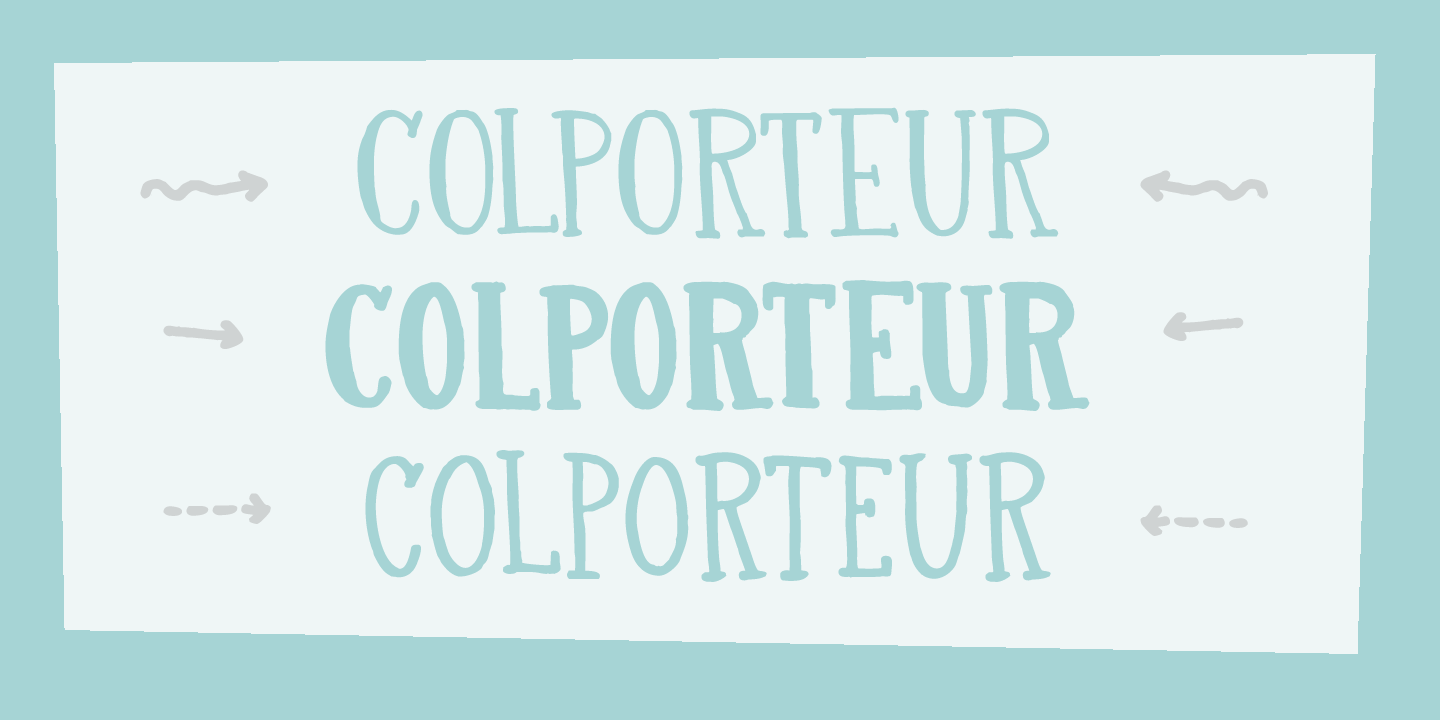
Colporteur Font is ideal for vintage bookstore branding, traveling merchant graphics, historical document reproductions, antique publishing materials, literary journal covers, nomadic lifestyle blogs, wandering storyteller themes, portable library designs, itinerant trader signage, and any adventurous project that celebrates the romantic tradition of traveling merchants who carried knowledge and stories across distant lands and remote communities.
What makes Colporteur Font exciting is its wandering wisdom that captures the adventurous spirit of traveling merchants and the timeless appeal of those who carry knowledge from place to place like precious cargo. This typeface embodies the essence of nomadic learning with weathered letterforms that suggest well-traveled books, dusty roads, and the patient dedication of those who understand that wisdom must be shared to truly flourish. The font's journeying character makes it perfect for brands and projects that want to communicate adventure, knowledge, and the romantic tradition of spreading learning through personal connection and wandering determination.
The Colporteur Font family includes multiple weights and travel-worn variations, featuring light, regular, and bold versions along with weathered textures and alternate characters that enhance the font's well-traveled appeal. This comprehensive collection allows designers to create authentically nomadic typography that maintains the font's signature wandering character while providing flexibility for various literary and adventure-themed design applications.
When exploring authentic traveling typography, Colporteur Font Free Download represents an exceptional opportunity to work with a typeface that genuinely captures the spirit of nomadic knowledge sharing and adventurous learning. This font demonstrates innovative design thinking by incorporating the weathered wisdom and portable practicality that defined both historical traveling merchants and the timeless human desire to share knowledge across geographical and cultural boundaries.
Professional designers appreciate Colporteur Font for its ability to instantly communicate literary adventure and knowledge sharing across various educational and publishing platforms. The font's nomadic character makes it particularly effective for independent publishers, educational organizations, and adventure-themed brands seeking to establish connections with audiences who value learning, exploration, and the romantic tradition of knowledge as a portable treasure.
The timeless appeal of Colporteur Font lies in its perfect representation of nomadic learning and knowledge sharing that continues to inspire people seeking authentic educational experiences and meaningful connections across cultures. This typeface serves as a celebration of the traveling tradition and the understanding that the best knowledge comes from those who have journeyed far to share their wisdom.
For creative professionals working with literary and educational adventure brands, Colporteur Font represents the ultimate typography solution that brings authentic nomadic wisdom and traveling knowledge to any application, ensuring designs reflect the adventurous spirit and wandering scholarship that define the most meaningful educational journeys and cross-cultural learning experiences.